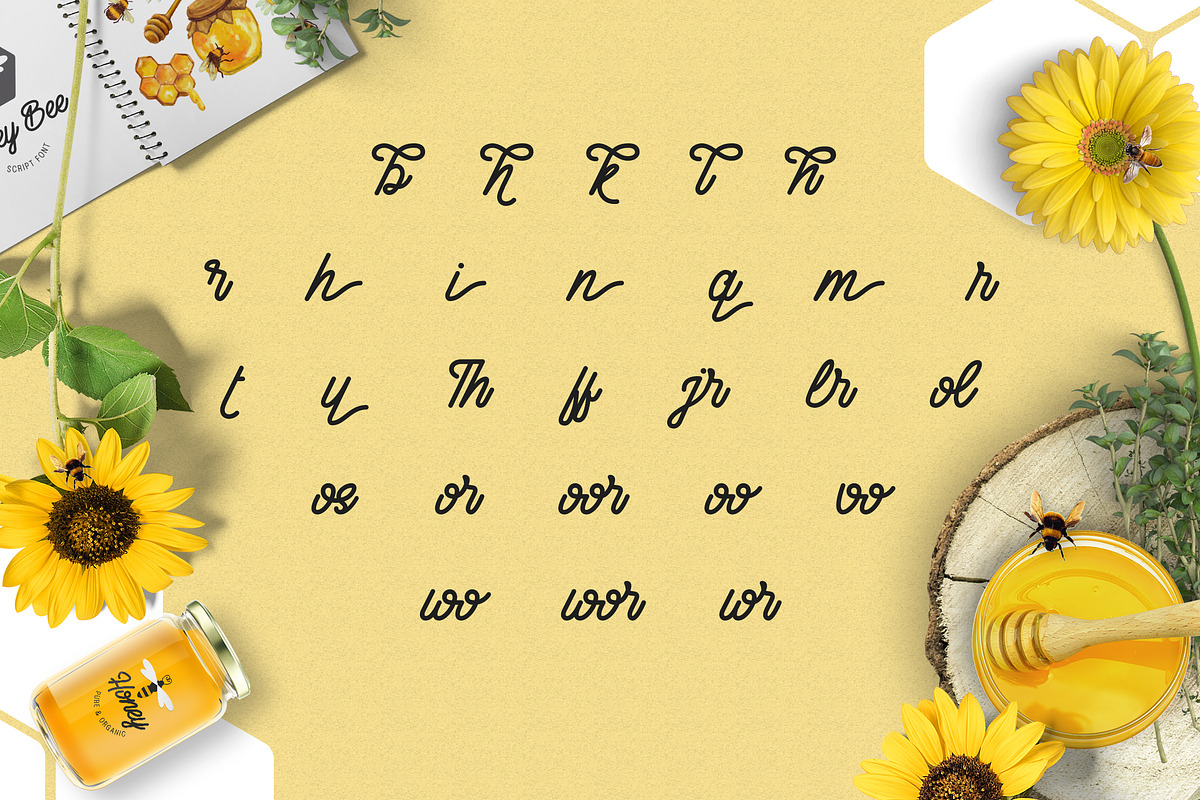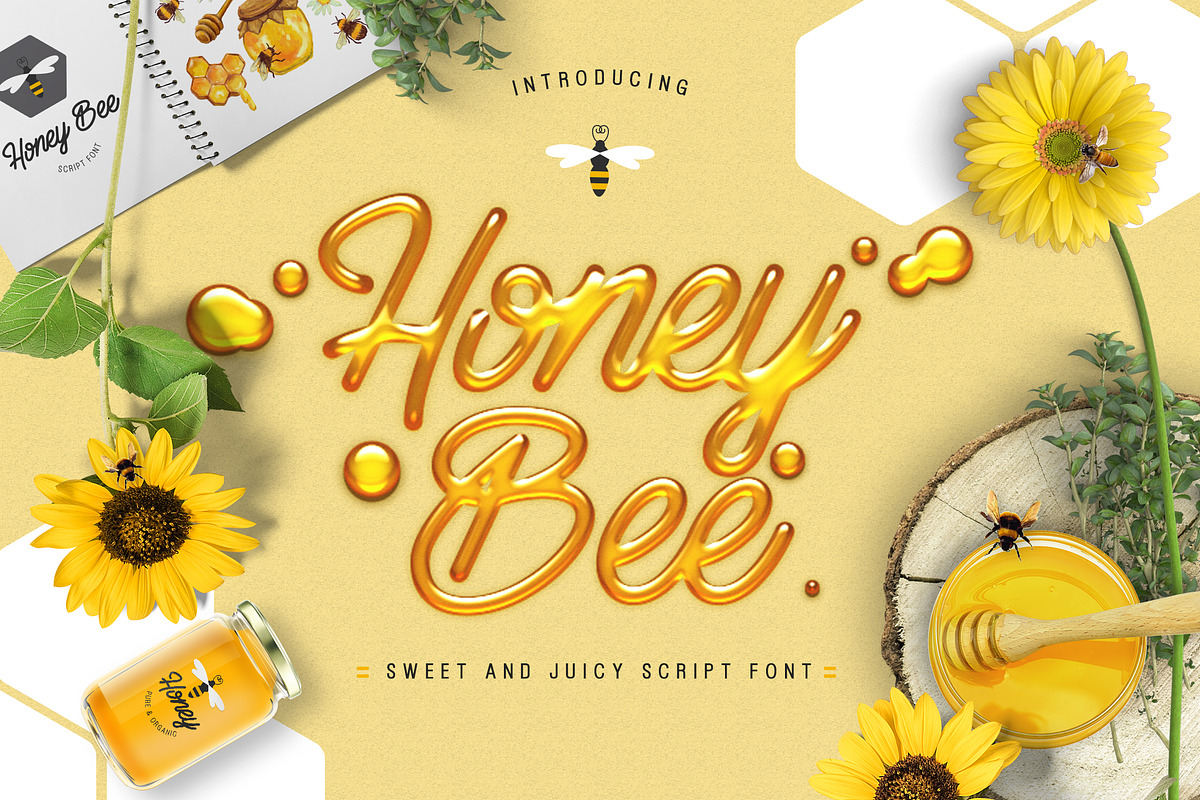
Honey Bee
Honey Bee by Font Bundles is a font selected for branding, posters, packaging, typography.
- This sweet and juicy script font includes additional swashes and extras to ensure your design work is always bee-autiful!
Honey Bee by Font Bundles fits naturally into Branding, posters, packaging, typography.